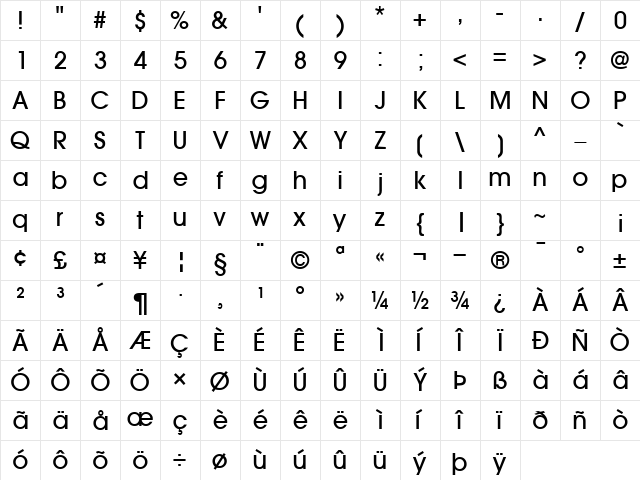
Complete TrendexLightSSK Bold glyph index. Displaying only characters natively supported by TrendexLightSSK Bold font.
TrendexLightSSK is a composed and adaptable typeface that performs quietly and consistently across a wide range of design contexts. Its bold stroke weight gives it real presence on the page.
Pro Tip: Use TrendexLightSSK in both headline and body roles to test its range before committing to a single application.